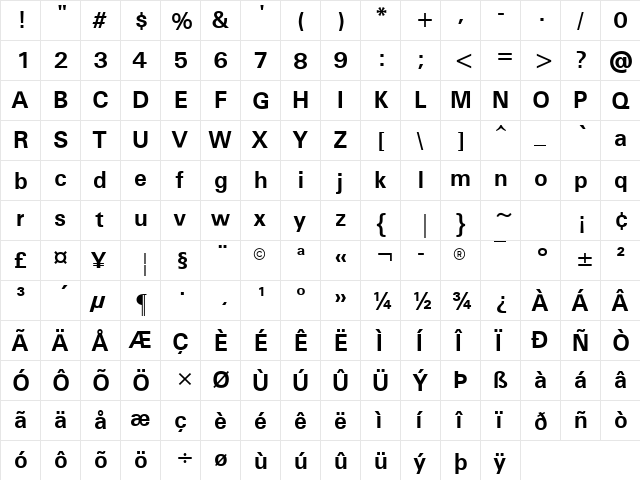
MilkyWay Bold Regular
Design Context for MilkyWay Bold Typeface
MilkyWay Bold takes a measured approach to typography — its balanced proportions and neutral character make it a reliable workhorse for both digital and print work. Its bold stroke weight gives it real presence on the page.